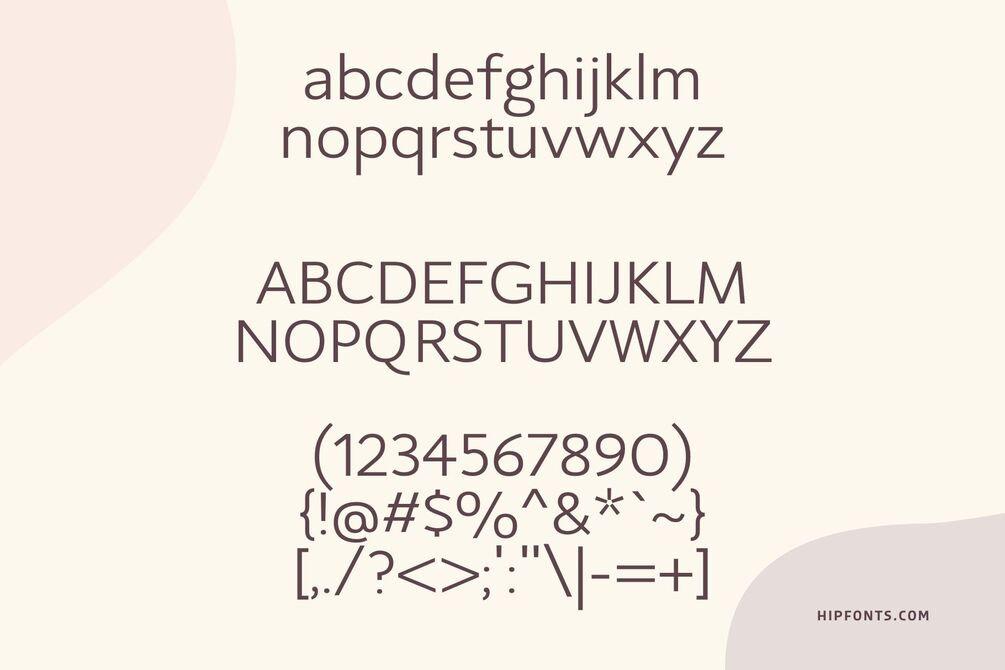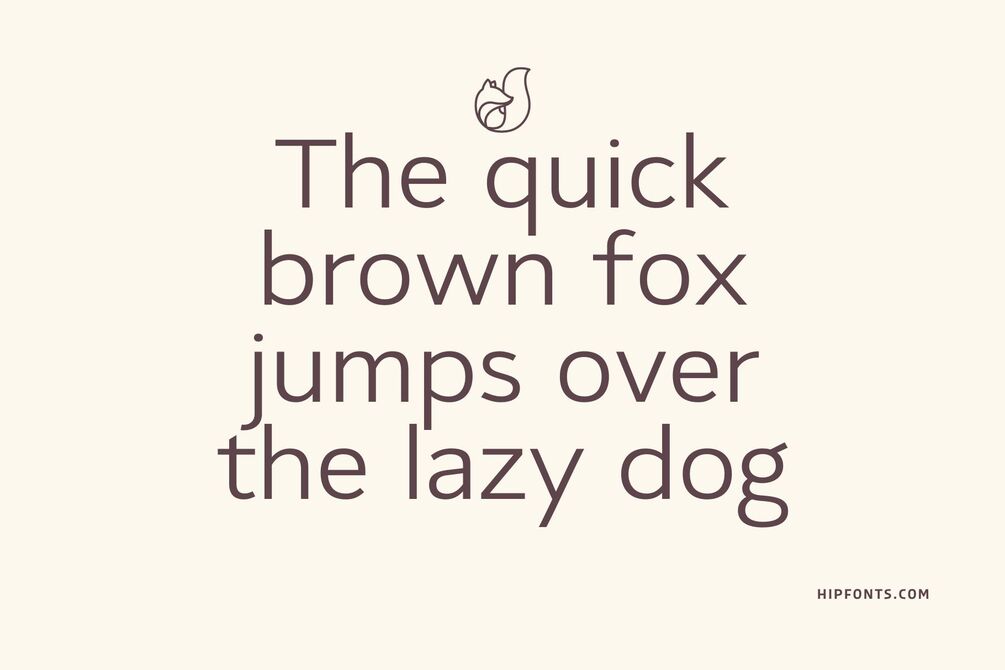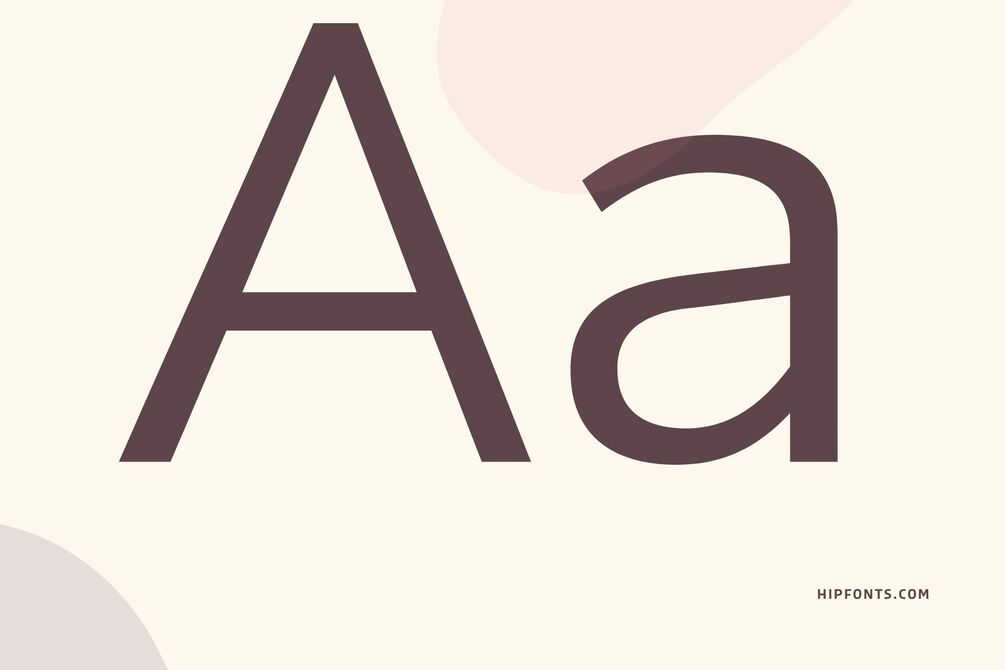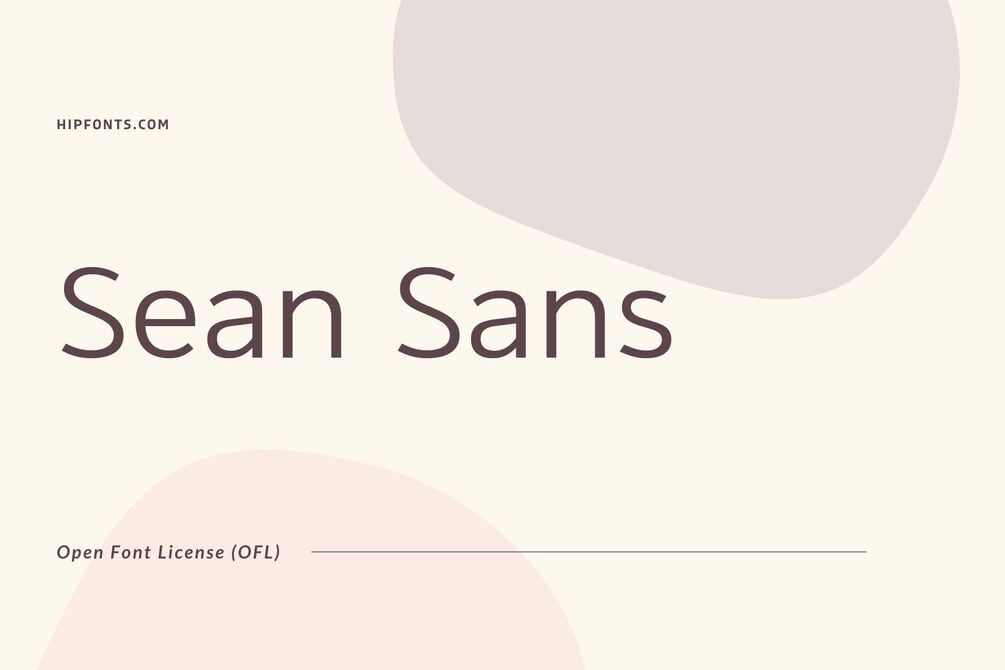
Sean Sans
Introducing "Sean Sans," a contemporary and versatile font that embodies simplicity and sophistication. With its clean lines and minimalistic aesthetic, Sean Sans offers a timeless appeal that is both modern and approachable. This font strikes the perfect balance between legibility and visual impact, making it suitable for a wide range of design applications.
Sean Sans is characterized by its balanced letterforms, harmonious proportions, and subtle geometric influences. Its simplicity allows it to seamlessly integrate into various design projects, whether it's for branding, editorial layouts, web design, or user interfaces. The font's versatility shines through in its ability to adapt to different typographic settings, from bold headlines to elegant body text.
There are various styles of this font, including:
• Sean Sans Regular: The standard and most commonly used style of Sean Sans, offering a clean and balanced design suitable for a wide range of projects.
• Sean Sans Bold: A bolder version of the font, ideal for making a strong impact and emphasizing headlines or important text elements.
• Sean Sans Light: A lighter variant of Sean Sans, providing a delicate and subtle appearance while maintaining readability. Perfect for designs that require a softer touch.
• Sean Sans Italic: An italicized version of Sean Sans that adds a slight slant to the letterforms, introducing a sense of dynamic movement and emphasis.
• Sean Sans Condensed: A narrower variation of the font, allowing for more compact typography and efficient use of space, without compromising legibility.
• Sean Sans Extended: The extended version of Sean Sans, featuring wider letterforms that create a bold and expansive visual impact.
• Sean Sans Thin: An ultra-lightweight style of Sean Sans, offering a delicate and refined typographic solution for elegant and minimalistic designs.
• Sean Sans Extra Bold: An even heavier and more pronounced version of Sean Sans, delivering maximum visual impact and commanding attention.
• Sean Sans Medium: A medium-weight style that strikes a balance between the regular and bold variants, providing versatility and a harmonious typographic hierarchy.
The creator of Sean Sans, Simon Egli, paid meticulous attention to detail, ensuring that every glyph is finely crafted to maintain consistent spacing and readability. This attention to precision guarantees a seamless reading experience across different sizes and mediums. With its modern elegance and adaptable nature, Sean Sans is a reliable choice for designers seeking a versatile and contemporary font that effortlessly elevates their creative vision.